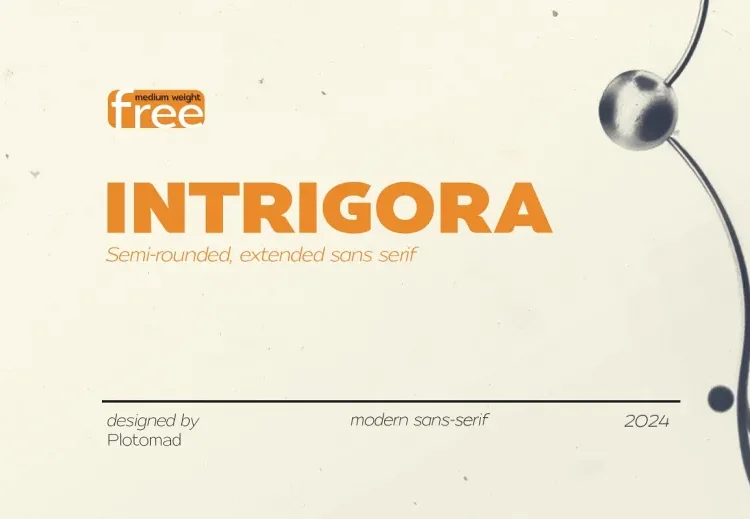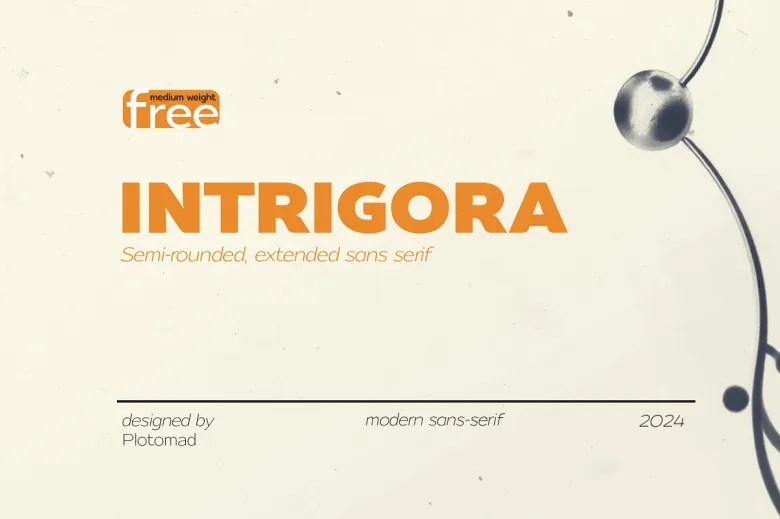
Intrigora Font
Intrigora embodies modern typography with its sleek, contemporary style combined with the cozy warmth of its rounded features. This versatile font is designed to transition seamlessly between various design contexts, making it an excellent choice for enhancing branding efforts and drawing attention to headlines.
With its wide range of font selections, Intrigora allows designers to create captivating and inspiring designs. Each letter is meticulously crafted to ensure clarity while adding an element of intrigue. This makes Intrigora suitable for both print and digital applications, allowing it to stand out in diverse contexts.